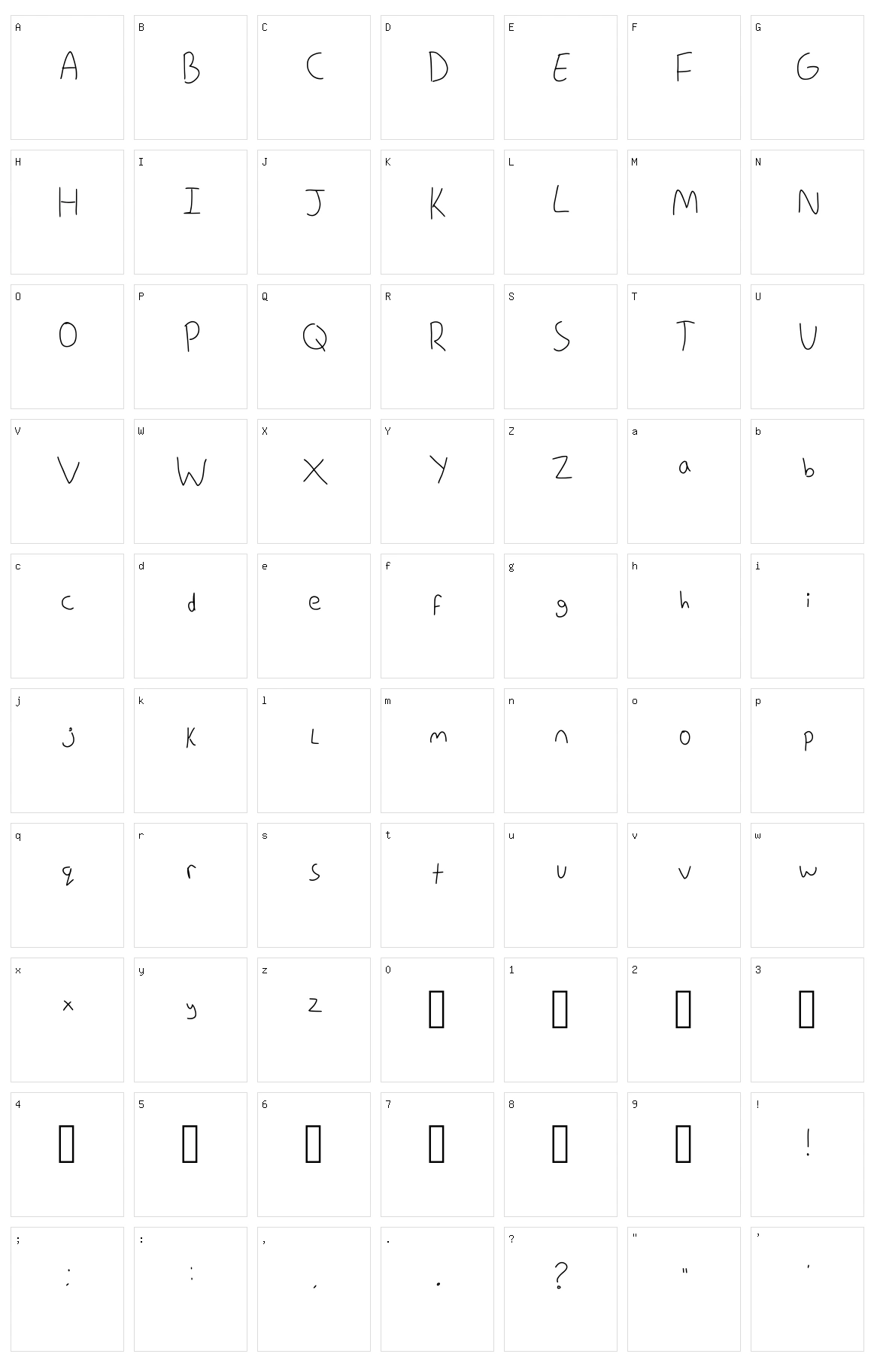
The free font Scribbles is carefully designed by MuudyBwoos, showcasing a thoughtful balance of creativity and usability and falls under the Script font style. When you download the ZIP file, it contains only 7.93 KB of font files, making it lightweight and quick to download. Please review the license details below to understand permitted usage and distribution rights. If license information is not available, we recommend using this font for personal projects only or contacting the author directly for commercial usage permissions.